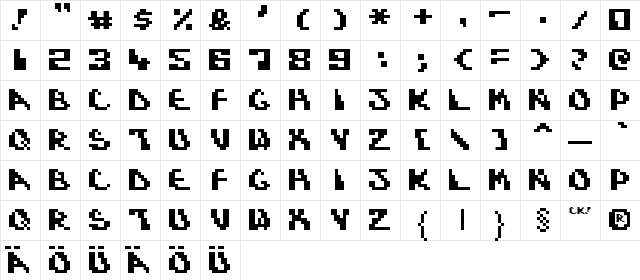
Dynamic Recompilation Regular
| Foundry | [FreakyFonts] |
| Designer | .:ck!:. |
Design Context for Dynamic Recompilation Typeface
Dynamic Recompilation takes a measured approach to typography — its balanced proportions and neutral character make it a reliable workhorse for both digital and print work.